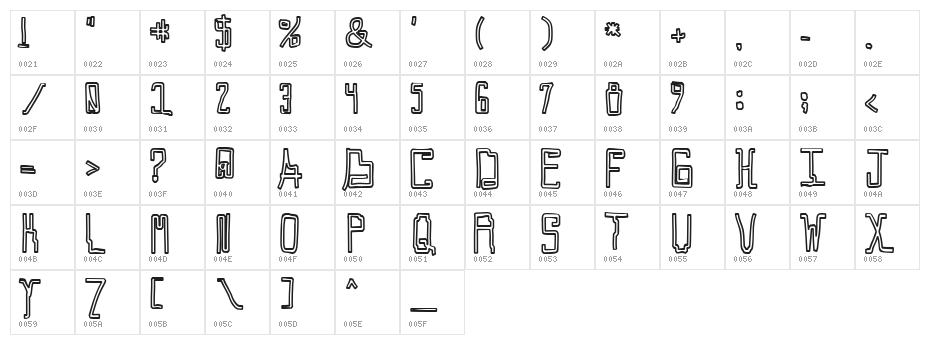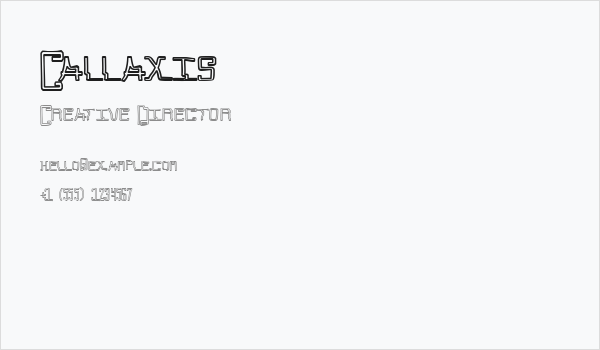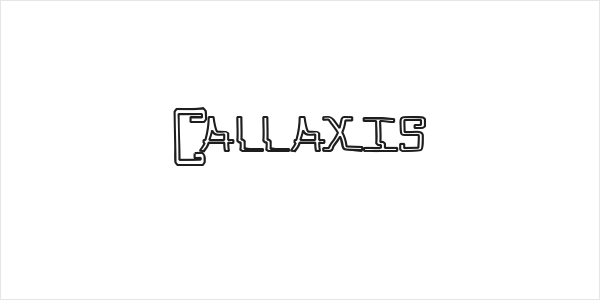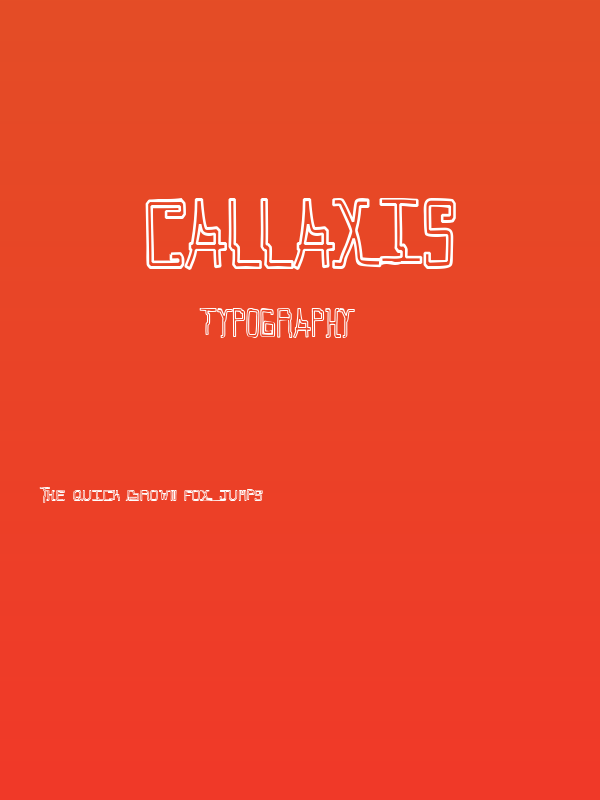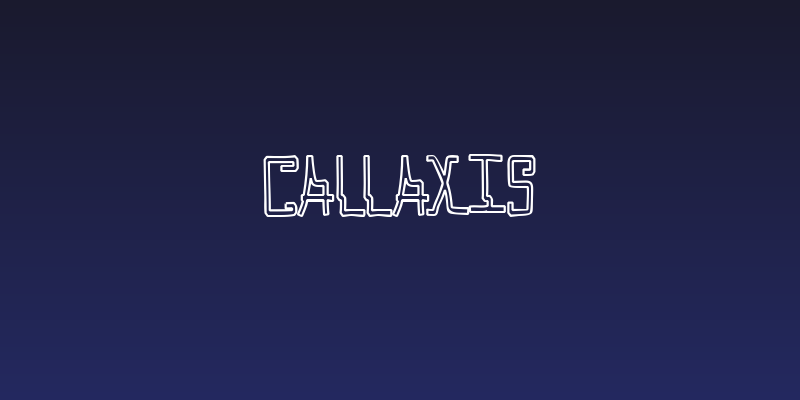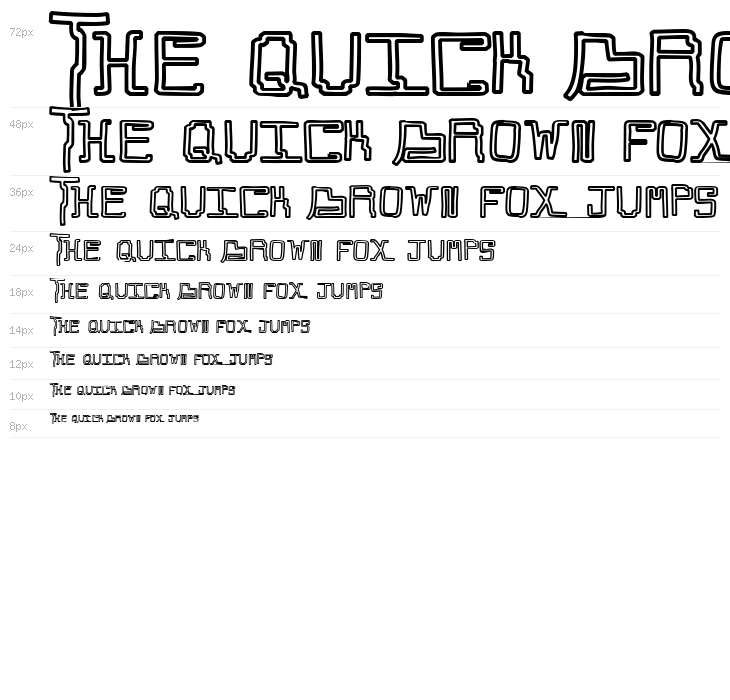
Callaxis Font
Callaxis Description
This font features a unique, outlined style with a modern and futuristic appearance. The characters are constructed with a double-line technique, creating a hollow effect that gives them a three-dimensional look. The uppercase and lowercase letters maintain a consistent design, with angular and geometric shapes that emphasize a sense of structure and precision. The numbers and special characters follow the same aesthetic, ensuring uniformity across all elements. This font's distinct style makes it suitable for creative and bold design projects where a standout typeface is required.
| Proposed Projects | Ideal for branding, posters, digital artwork, and any project requiring a bold, eye-catching typeface. |